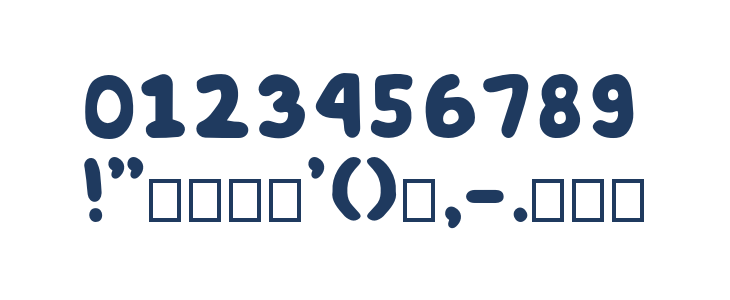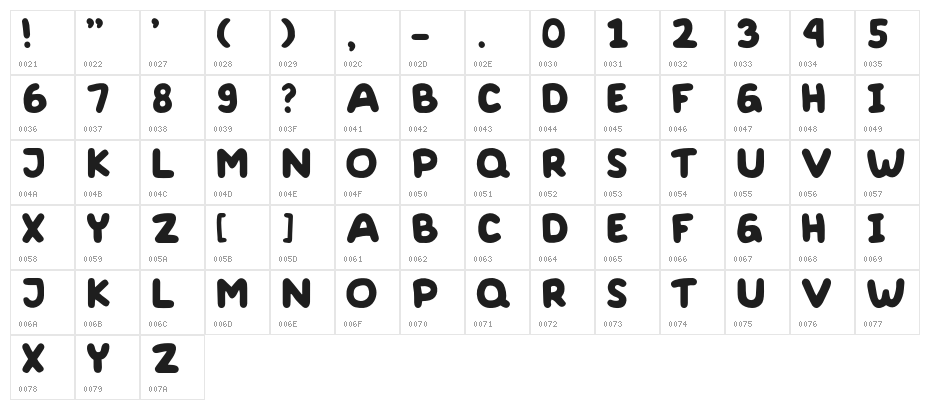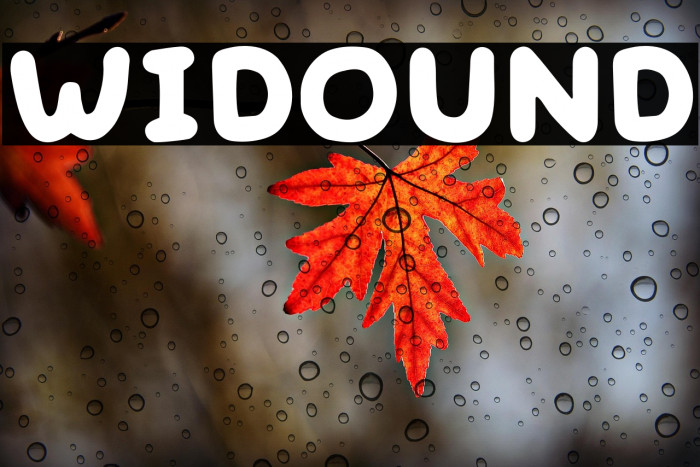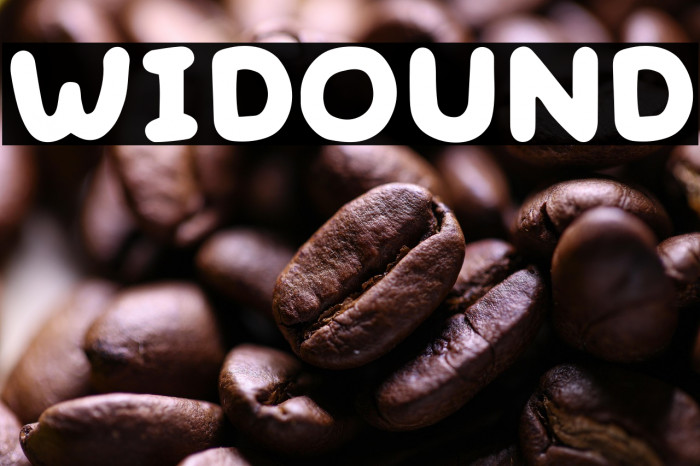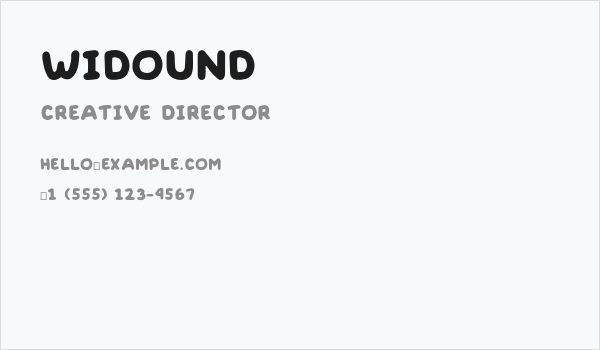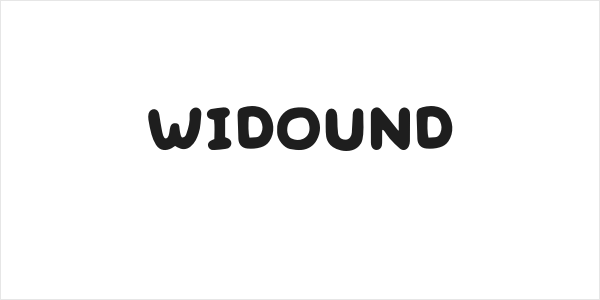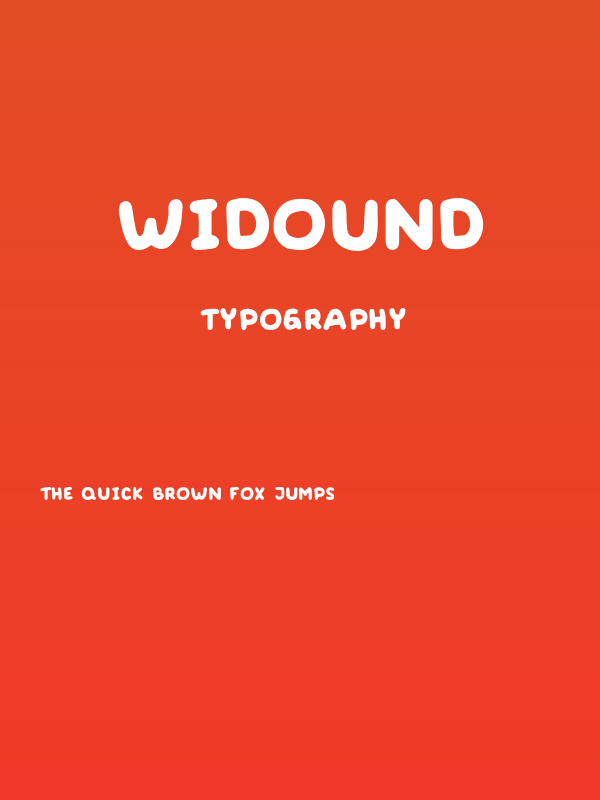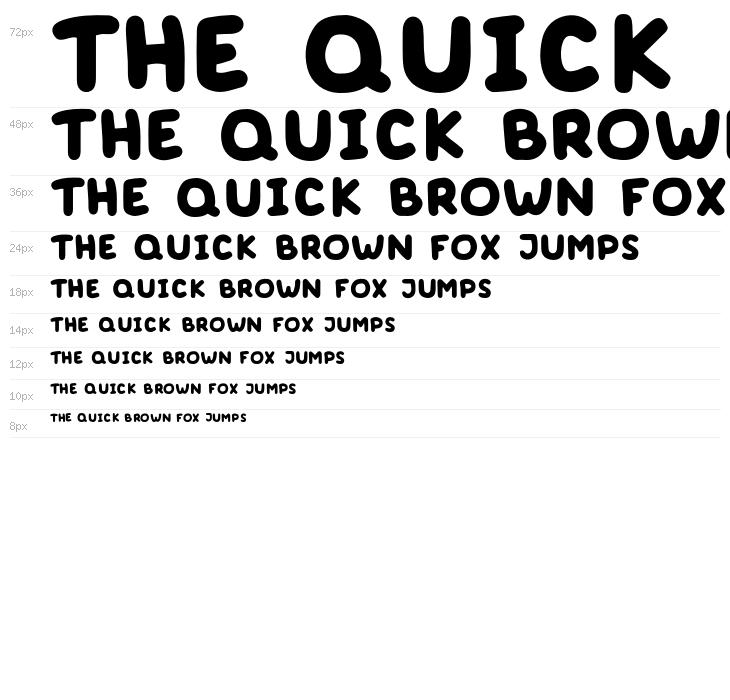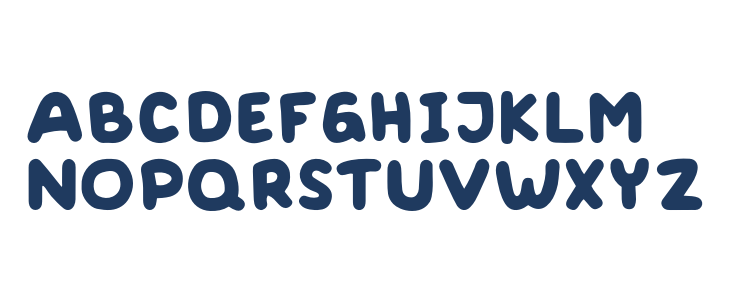
Widound Font
Widound Description
This font features a playful and rounded design, characterized by its bold and thick strokes. The letters have a uniform thickness, giving them a cartoonish and friendly appearance. The rounded edges and smooth curves contribute to its approachable and informal style. The numbers and special characters maintain the same playful aesthetic, making it suitable for designs that aim to be fun and engaging. The overall look is consistent and cohesive, with each character maintaining a similar width and height, ensuring readability and visual harmony.
Overall StylePlayful
Proposed ProjectsIdeal for children's books, comic strips, playful branding, and casual invitations.